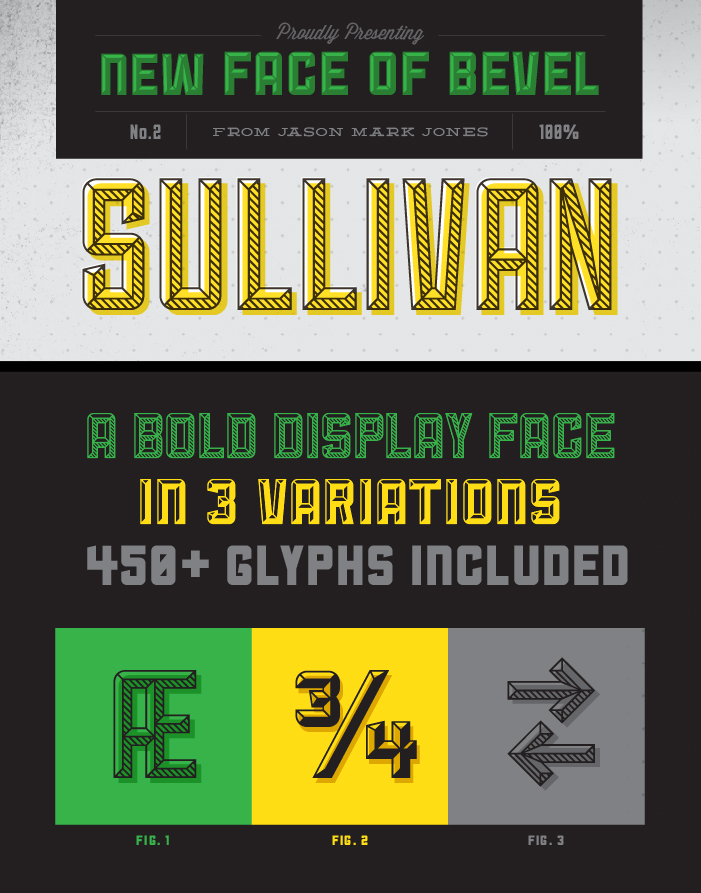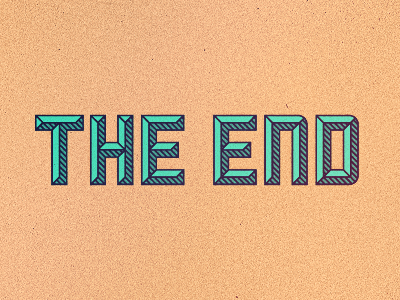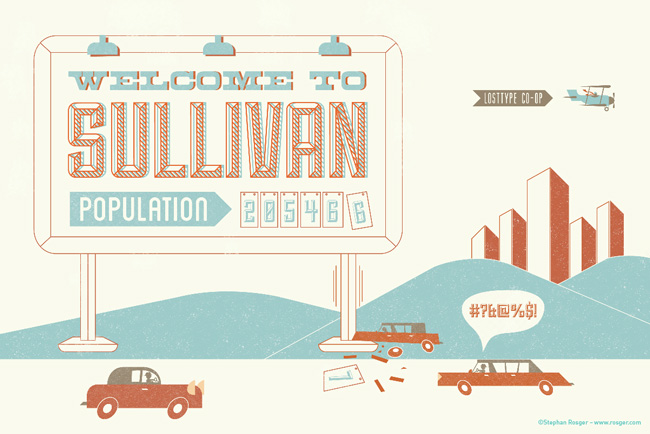
Sullivan
A KEEN BEVEL. EQUALLY FUN & POWERFUL.
Not your traditional modular typeface. Sullivan is a bold display face that comes in three variations. Each can be used effectively on their own or layered for a uniquely modern, industrial effect.
Originally inspired by the letter "S" design by Scott Allen Hill of Foundry Collective.